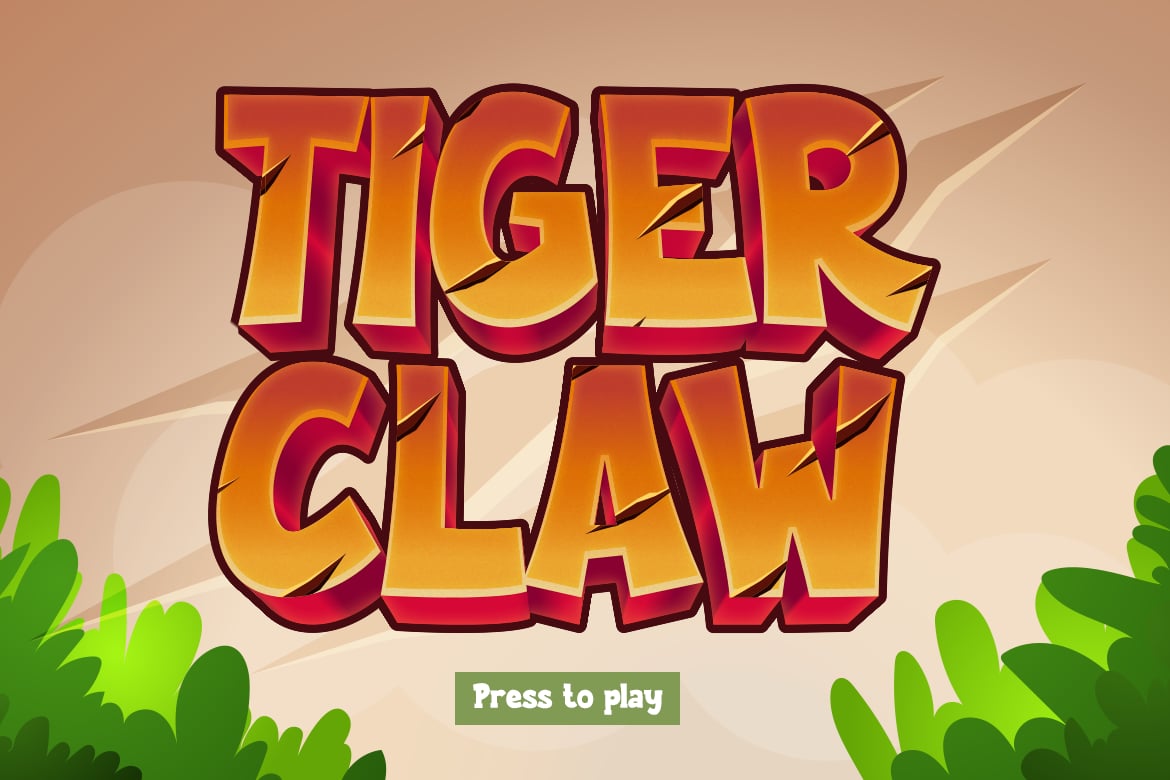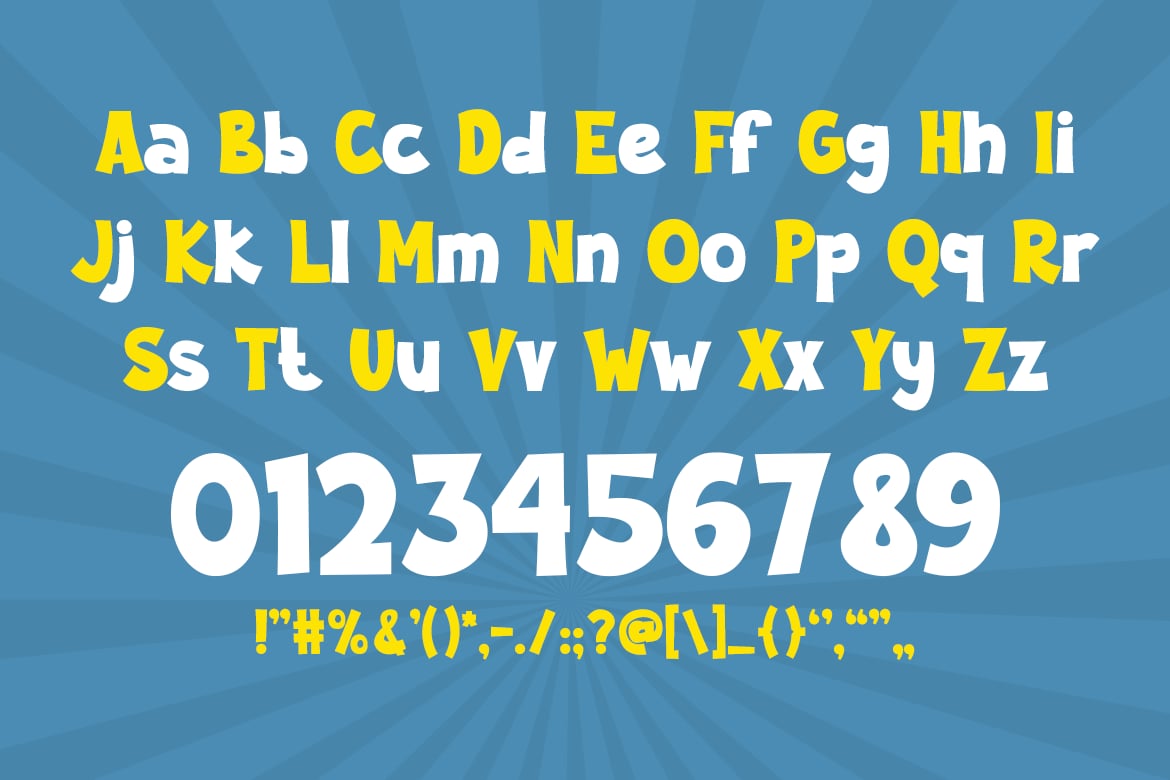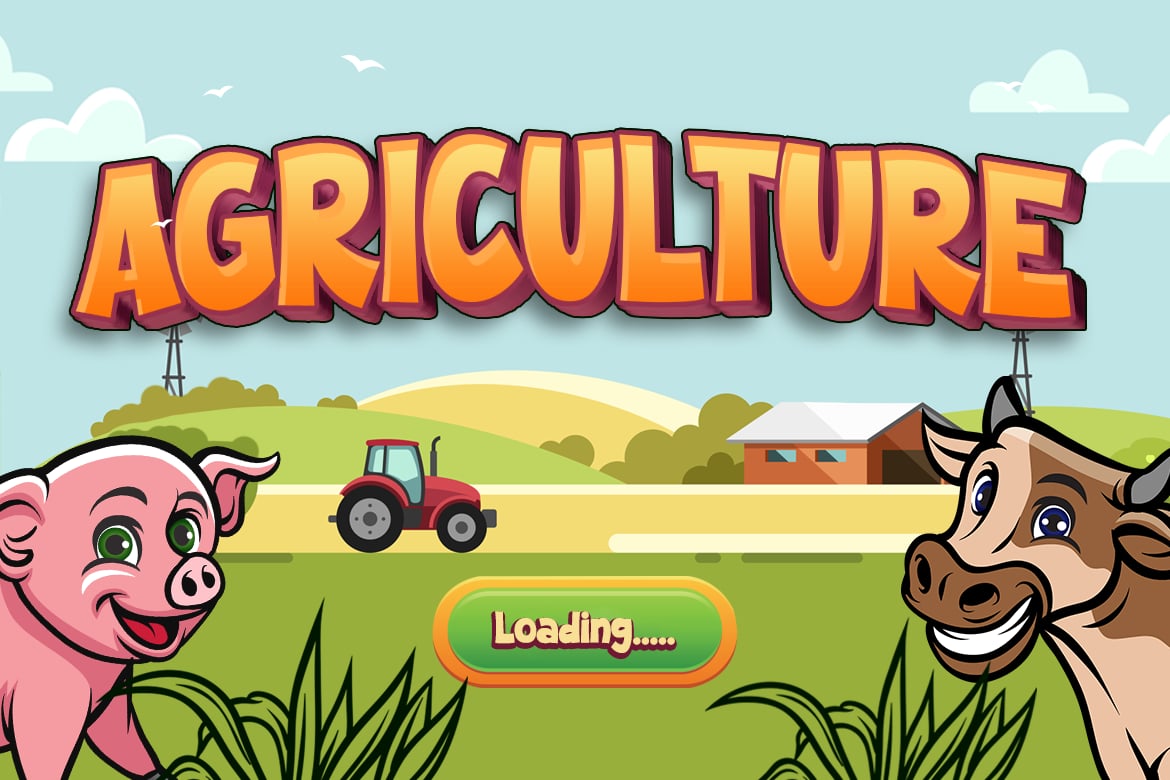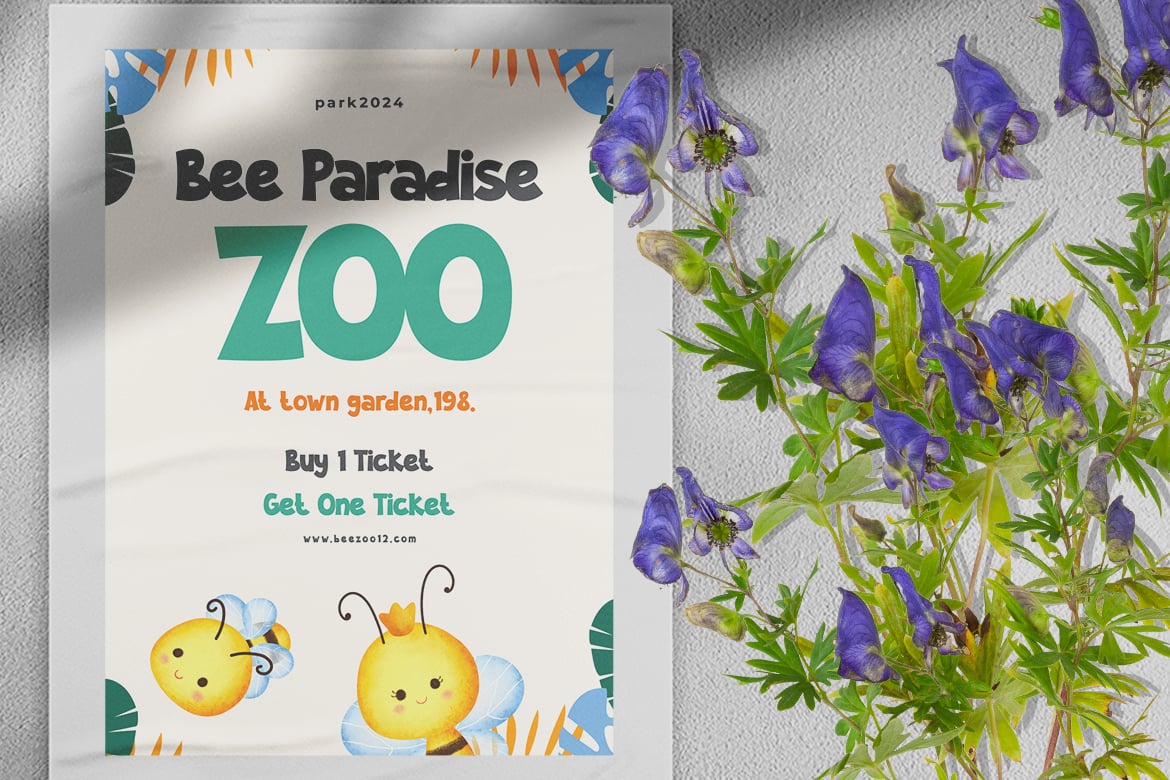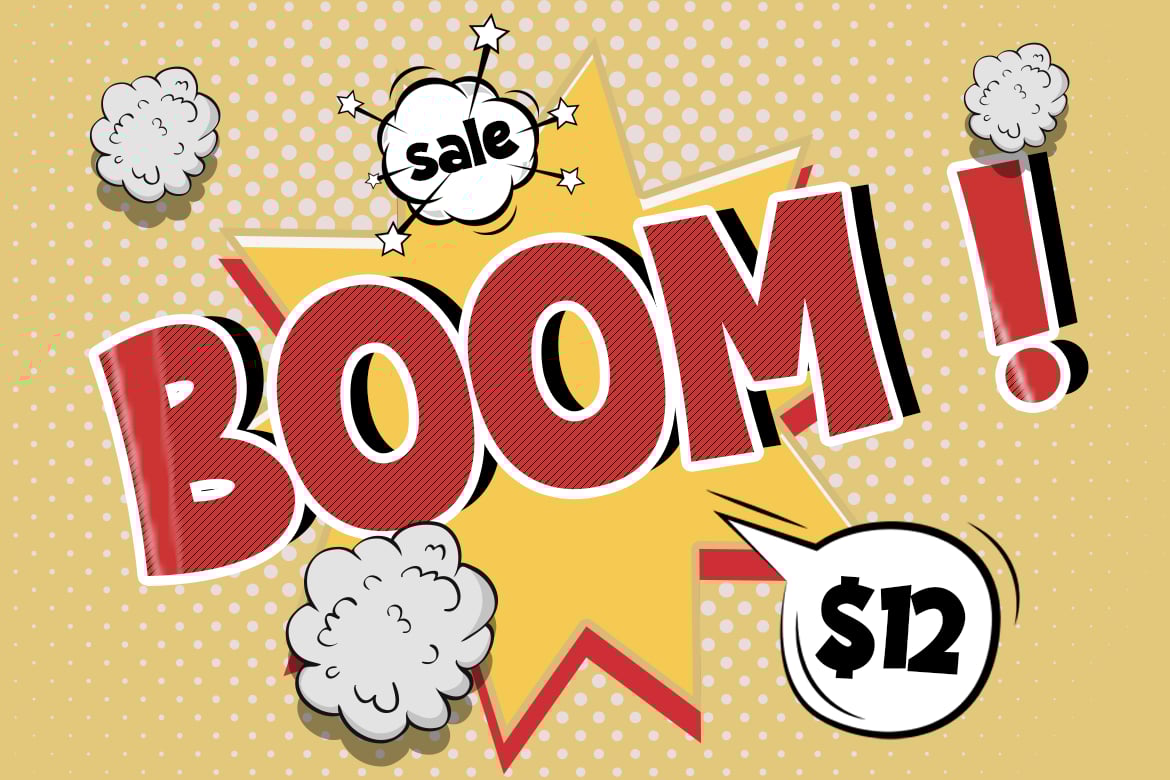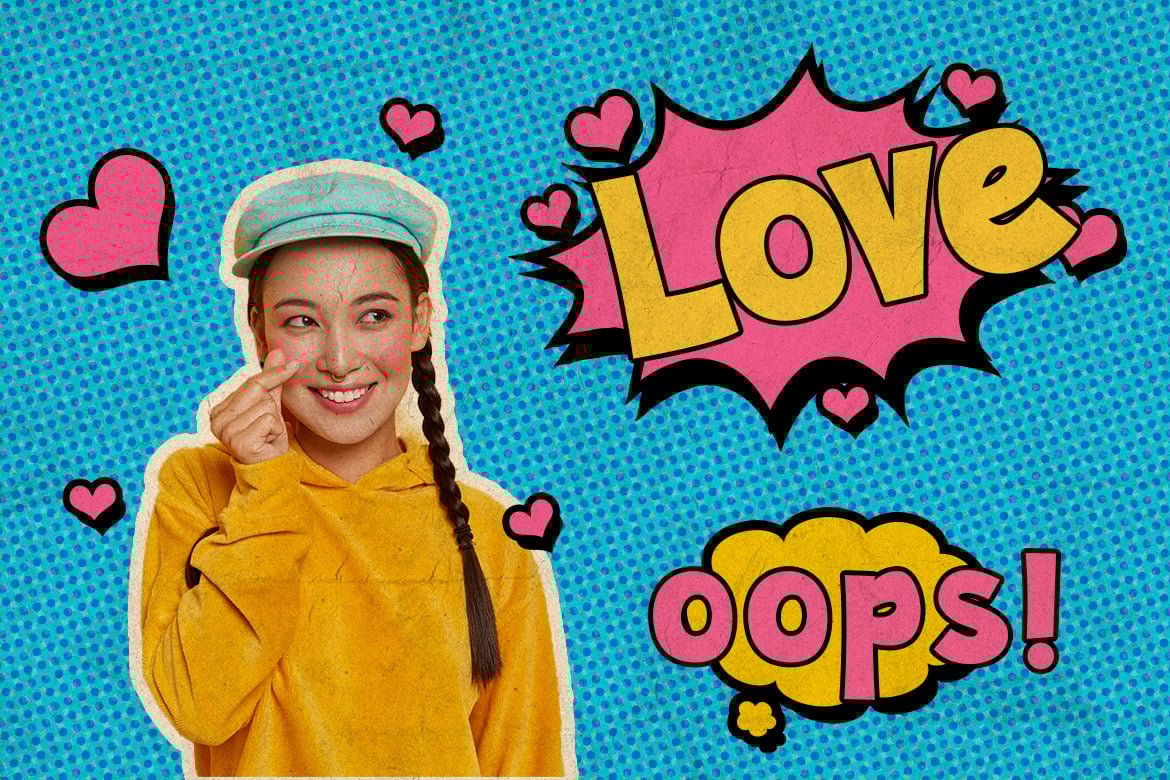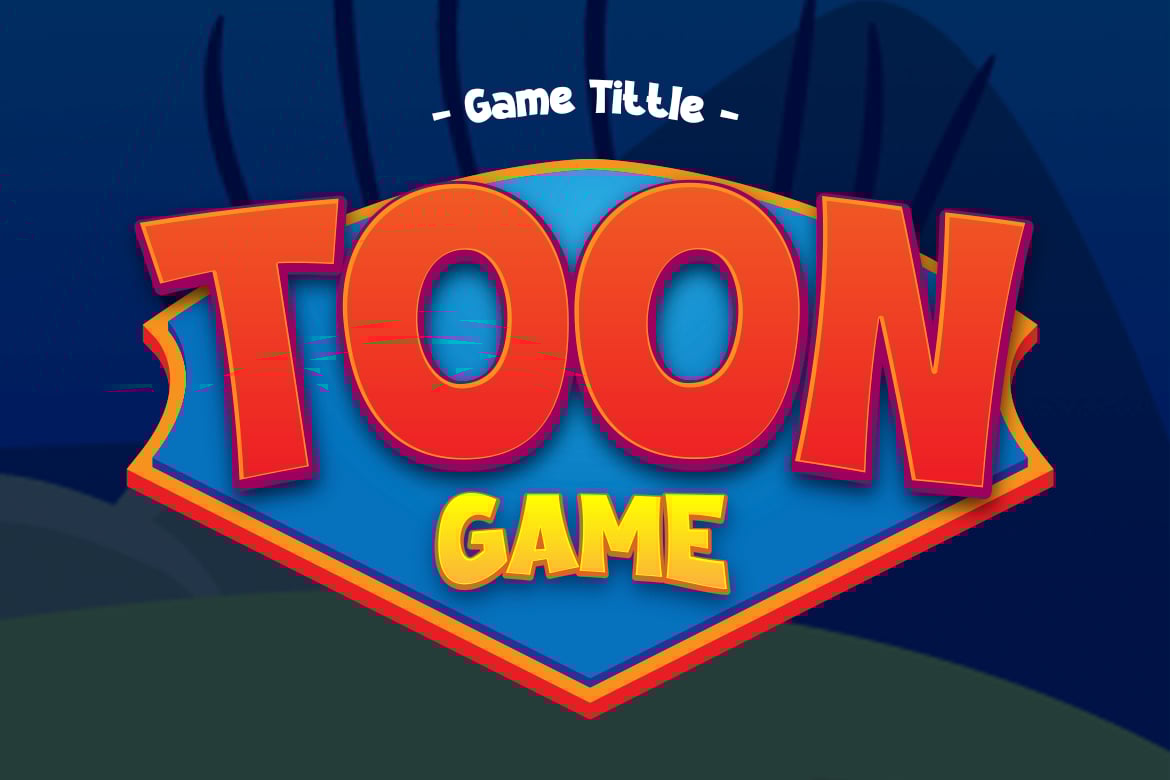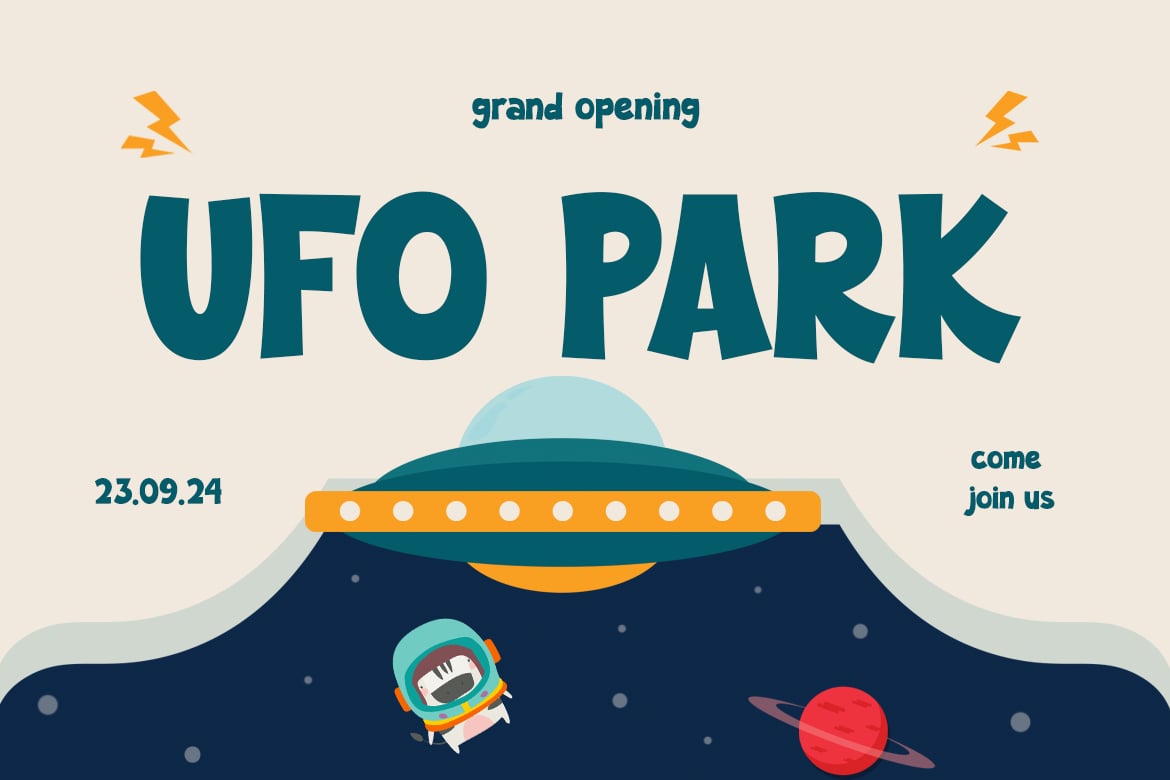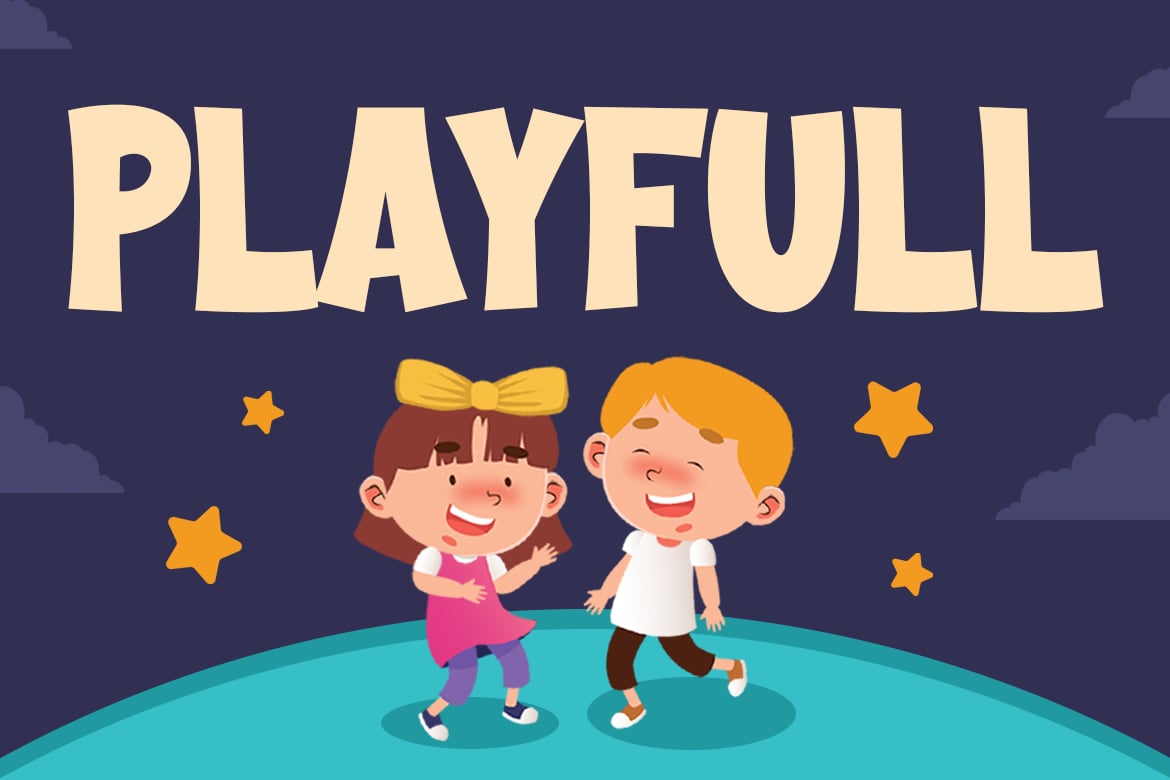
Blaster – Comic Cartoon Font
Blaster is a comic font that encapsulates the spirit of gaming and cartoon fun with a vibrant and energetic style. Designed to inject humor and liveliness into any project, this font is ideal for logos that aim to stand out with a playful yet bold presence. Blaster enhances quotes with its funny and engaging character, making each word leap off the page. Its appeal is perfect for creating invitations that promise excitement and posters and greetings that captivate and entertain. Blaster’s dynamic form also makes it a top choice for packaging and branding, where its fun and cartoonish style can truly shine. Whether used for book covers, event promotions, headlines, or advertising, Blaster ensures your messages are not just seen but remembered with a smile.